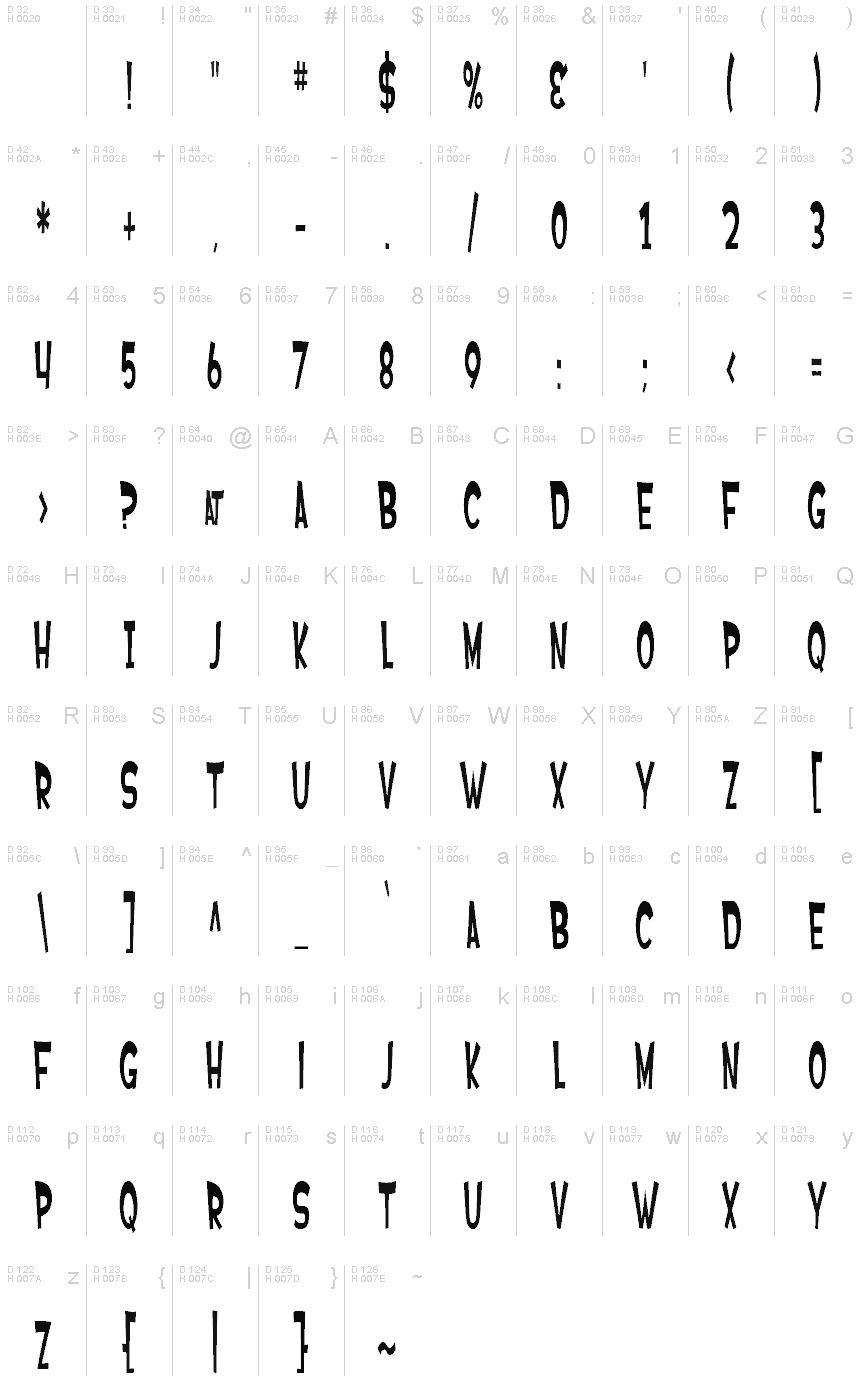
SF Ferretopia
SF Ferretopia is a captivating display font designed by ShyFonts Type Foundry. With its unique characteristics, this font brings a playful and energetic vibe to any creative project. Its comic style adds a touch of whimsy and joy, making it perfect for designs that require a lighthearted and fun approach.
The semi-bold weight of SF Ferretopia ensures that your text stands out, grabbing the viewer's attention effortlessly. Additionally, its extra-condensed width allows for maximum versatility in layout design, making it suitable for various types of projects.
Whether you're creating eye-catching posters, vibrant logos, or captivating social media graphics, SF Ferretopia's distinct features will make your designs truly stand out from the crowd. Its ability to infuse personality into any design makes it an ideal choice for brands looking to add a touch of charm and playfulness to their visual identity.
Unleash your creativity with SF Ferretopia and let its unique qualities elevate your next creative endeavor.